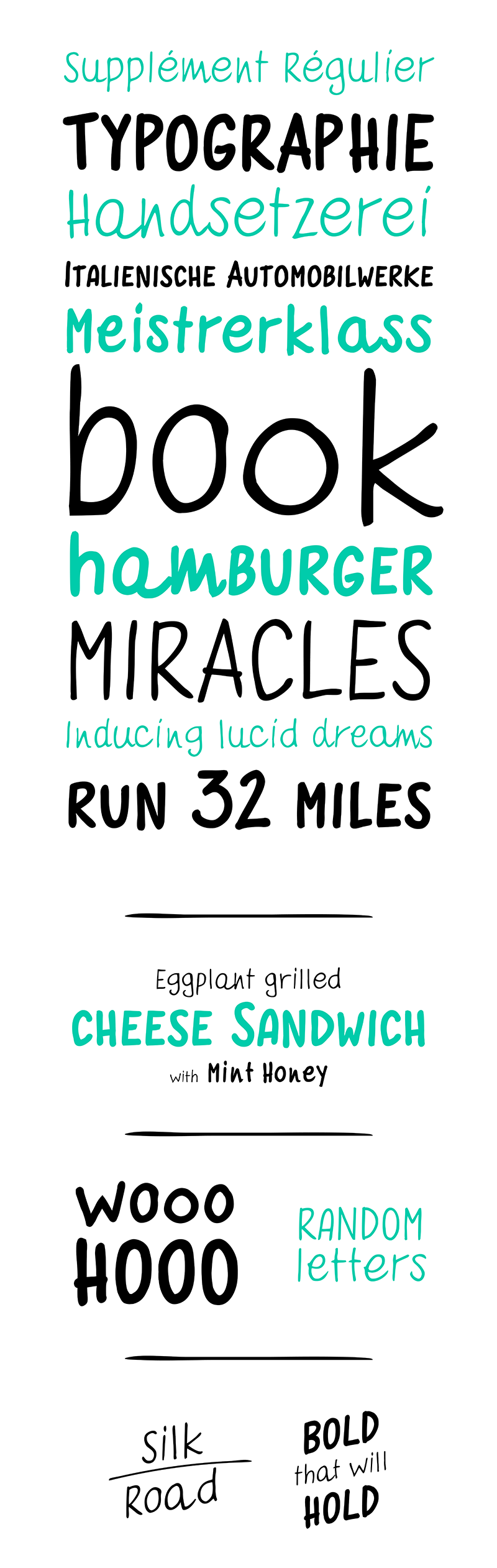
Font name: | Quaderno Bianco |
Author: | Monofonts |
Note by Monofonts | |
Quaderno Bianco is an Handwriting Display Font, its design is simple and instinctive, just like a note left on the table or a post-it on the fridge, the meaning of the name is “white notebook”, Quaderno Bianco is a font that helps to unchain the creativity. Its strenght is in the Opentype Functions, it has a SmallCaps function and a Random function, the last one mimics an actual writing, where the letters always differs by little details. By activate the “Alternate” Opentype function of your software it is possible use the alternative character sets. Every letter is presented in 4 extra different shapes (1 extra shape for numbers, symbols and punctuation), that replace the main glyph following a certain code; in that way it pretends a random glyph substitution and, at the same time, it avoids formatting issues that could appear every time at open or refresh of the document. The plain design make it perfect to suite positive communication as corporate identity or advertisings of Bio products or renewable energies, posters, greetings cards and much more. Quaderno Bianco Family: Quaderno Bianco Regular Quaderno Bianco Bold FULL version available here > https://www.monofonts.com/products/quaderno-bianco For commercial use, you can purchase the font at: https://www.monofonts.com/products/quaderno-bianco For more info on our license: http://www.monofonts.com/license |